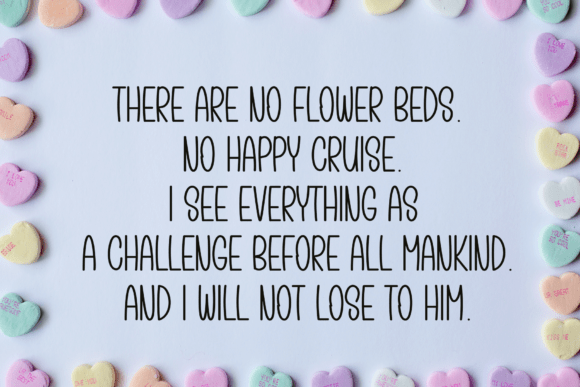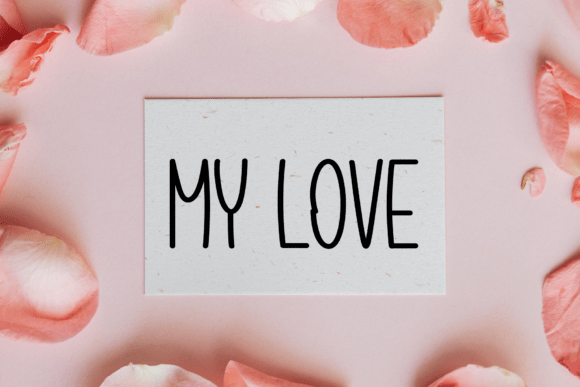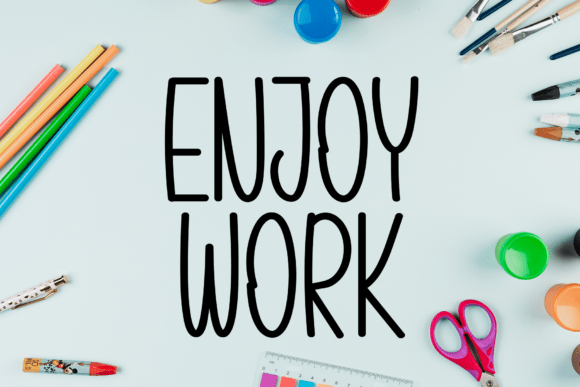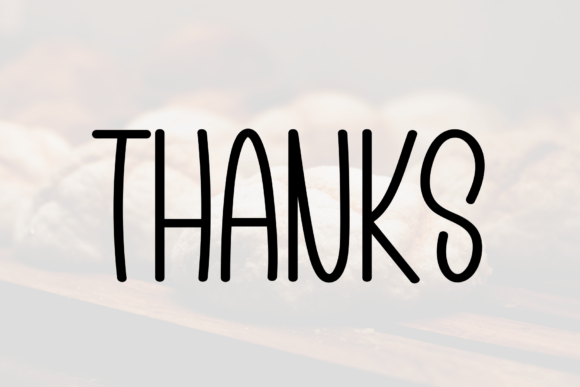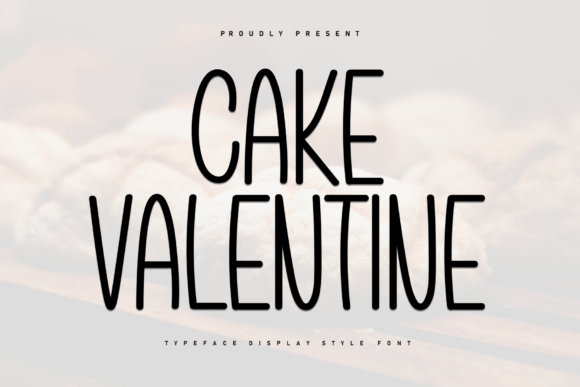
Tall, Sweet, and Playfully Modern: The Cake Valentine Font
Are you looking for a font that can add a touch of whimsy and celebration to your designs? Look no further than the Cake Valentine font, a ultra-tall display typeface that is sure to make your projects stand out. With its slender, elongated forms and “hand-printed” charm, this font is perfect for designers and crafters who want to add a modern and nostalgic feel to their work.
What is the Cake Valentine Font?
The Cake Valentine font is a unique and playful typeface that is characterized by its tall, narrow letters and rounded edges. The font has a “hand-printed” feel, which gives it a charming and whimsical touch. The letters are slender and elongated, making it perfect for headlines, titles, and other display text. The font is also highly legible, making it easy to read even at large sizes.
Key Features of the Cake Valentine Font
- Ultra-tall display typeface: The Cake Valentine font is designed to make a statement, with letters that are tall and slender.
- Hand-printed charm: The font has a charming, hand-printed feel that gives it a unique and playful touch.
- Rounded edges: The font features rounded edges, which give it a soft and friendly feel.
- Relaxed, airy spacing: The font has a relaxed, airy spacing that makes it easy to read and prevents it from feeling “tight.”
Uses for the Cake Valentine Font
The Cake Valentine font is perfect for a wide range of design projects, including:
- Party invitations: The font’s playful and celebratory feel makes it perfect for party invitations, birthdays, and other special occasions.
- Dessert menu headers: The font’s tall, slender letters make it perfect for headers and titles, especially for dessert menus and bakery designs.
- Vibrant social media stories: The font’s modern and playful feel makes it perfect for social media stories, especially for brands that want to add a touch of whimsy to their designs.
Tips for Using the Cake Valentine Font
To get the most out of the Cake Valentine font, try the following tips:
- Pair it with pastel colors: The font’s sweet and playful feel pairs perfectly with pastel colors, which add a touch of softness and whimsy to your designs.
- Add a soft neon glow effect: A soft neon glow effect can add a touch of modernity and sophistication to your designs, while also highlighting the font’s playful feel.
- Combine it with chunky “bubble” fonts: The font pairs perfectly with chunky “bubble” fonts, which add a touch of playfulness and diversity to your designs.
Why Designers and Crafters Love the Cake Valentine Font
The Cake Valentine font is a favorite among designers and crafters for several reasons:
- Unique and playful feel: The font’s unique and playful feel makes it perfect for designers and crafters who want to add a touch of whimsy to their work.
- Highly legible: The font is highly legible, even at large sizes, making it perfect for headlines and titles.
- Versatile: The font is versatile and can be used for a wide range of design projects, from party invitations to dessert menu headers.
The Cake Valentine font is a unique and playful typeface that is perfect for designers and crafters who want to add a touch of whimsy and celebration to their work. With its slender, elongated forms and “hand-printed” charm, this font is sure to make your projects stand out. Whether you’re designing party invitations, dessert menu headers, or vibrant social media stories, the Cake Valentine font is a great choice. So why not give it a try and see how it can add a touch of sweetness and playfulness to your designs?